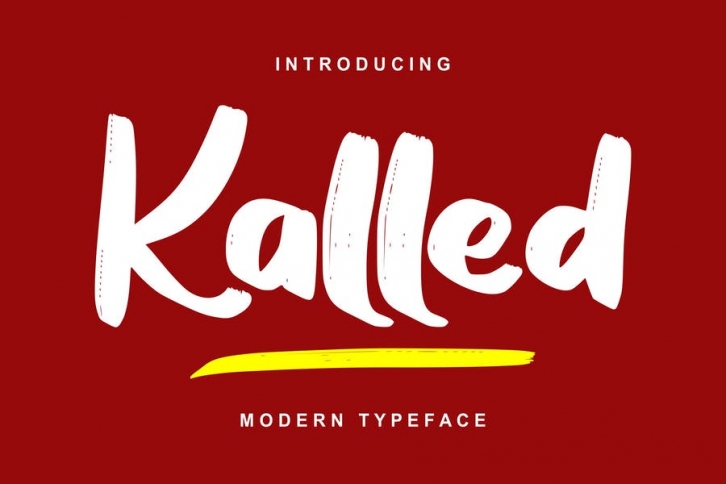
Kalled | Modern Typeface Script Font with a calligraphy style, So beautiful on invitation like greeting cards, branding materials, business cards, quotes, posters, and more!
- Alternates and Ligatures